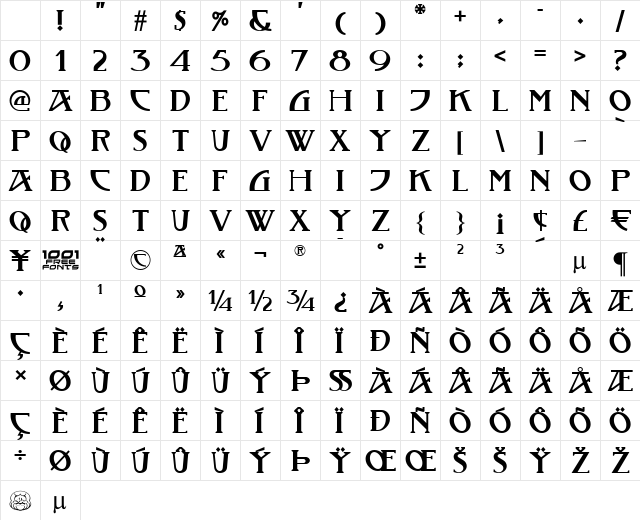
Complete Tobacco Road NF Regular glyph index. Displaying only characters natively supported by Tobacco Road NF Regular font.
Tobacco Road NF is a composed and adaptable typeface that performs quietly and consistently across a wide range of design contexts.